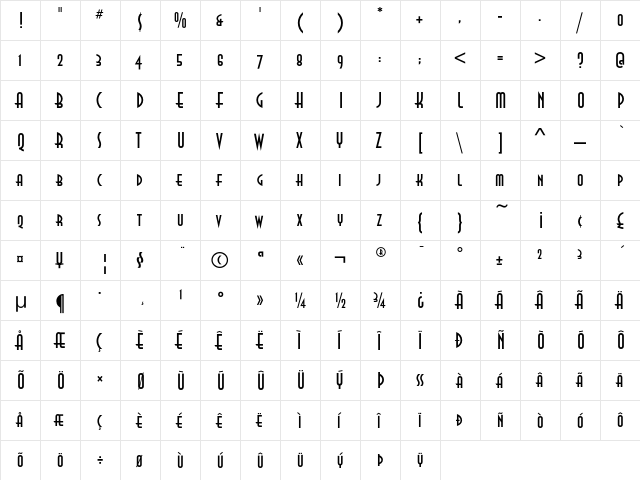
AnnaEF SmallCaps
Design Context for AnnaEF Typeface
AnnaEF is a composed and adaptable typeface that performs quietly and consistently across a wide range of design contexts.